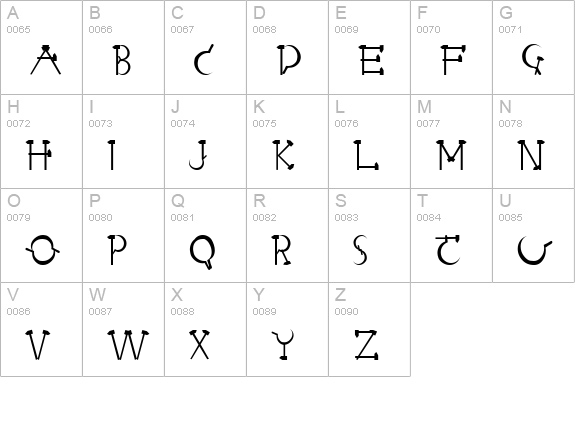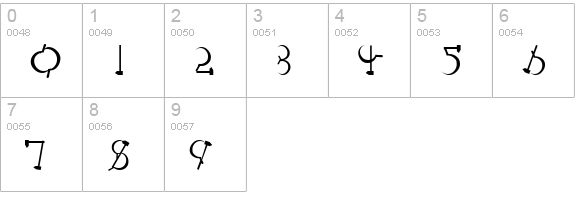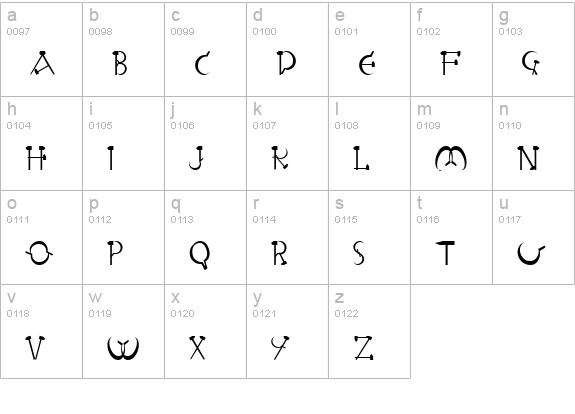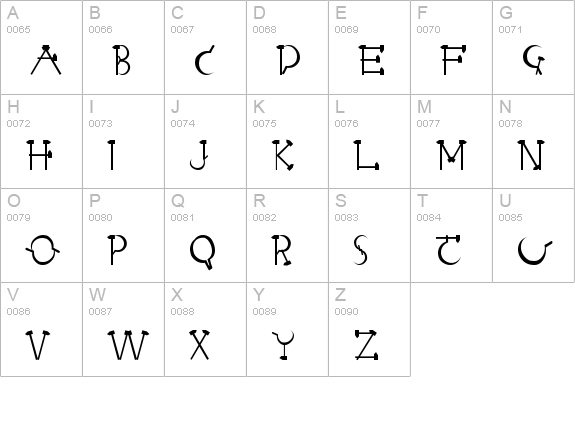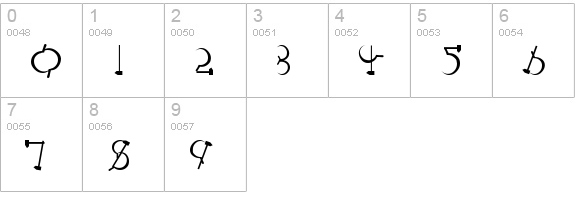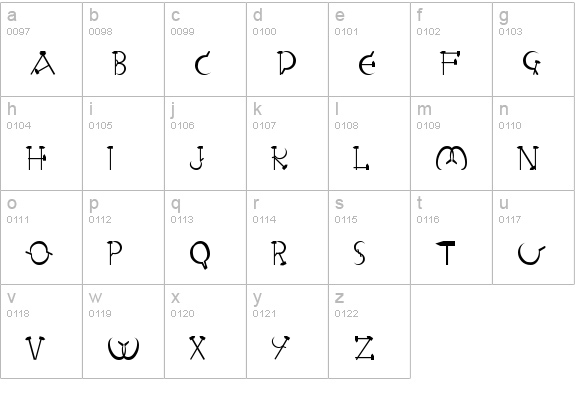
Leningrad Font Details
Leningrad font is a stunning display typeface that exudes a vintage charm with a modern twist. Its bold and distinct letterforms make it perfect for headlines, logos, posters, and more. The font's unique style adds a touch of sophistication and elegance to any design project. The best part? Leningrad font is completely free to download at FontsMarket.com. This means you can easily add this versatile typeface to your collection without any cost. Whether you're a designer looking to spice up your creations or a business owner in need of a fresh look for your branding, Leningrad font is a fantastic choice that won't break the bank. Download Leningrad font today and elevate your designs with its timeless appeal and effortless charm.